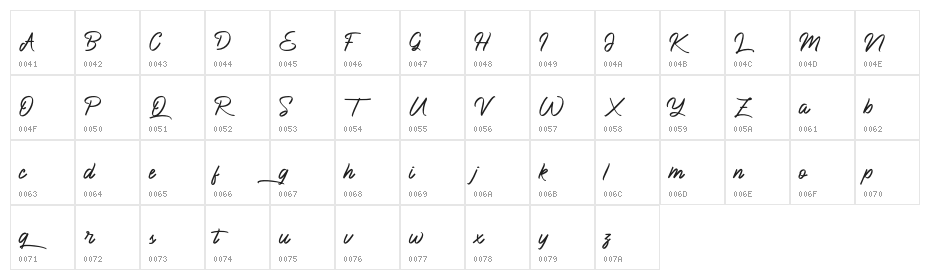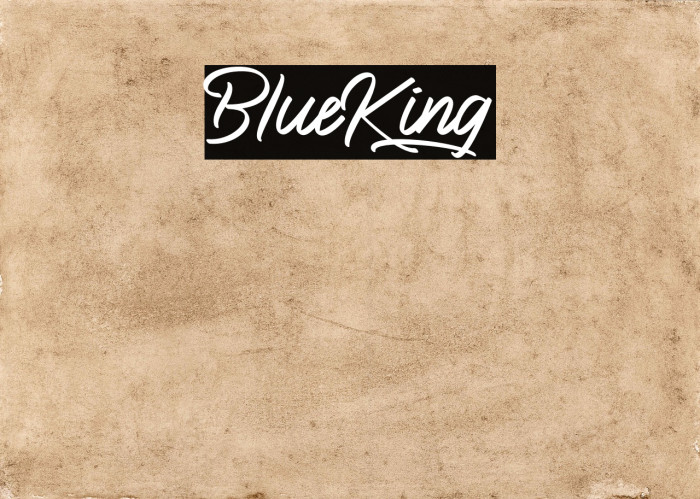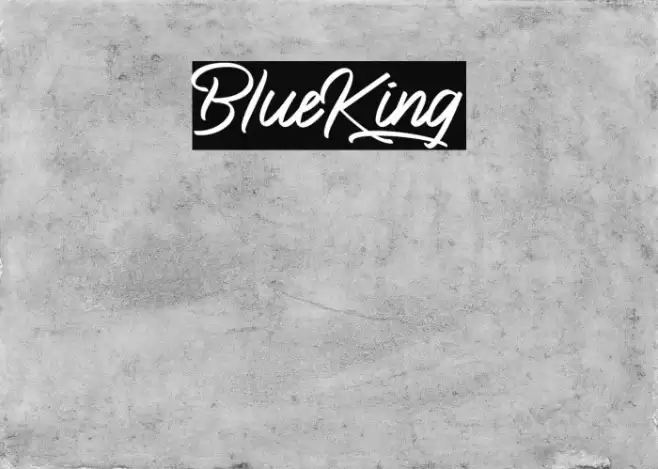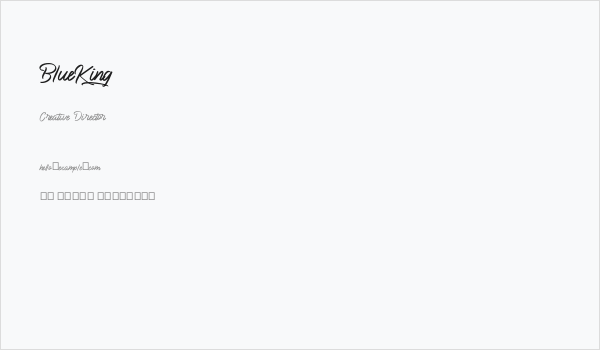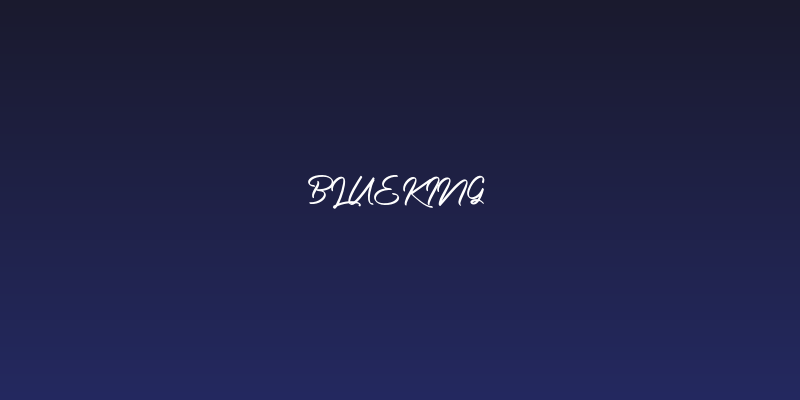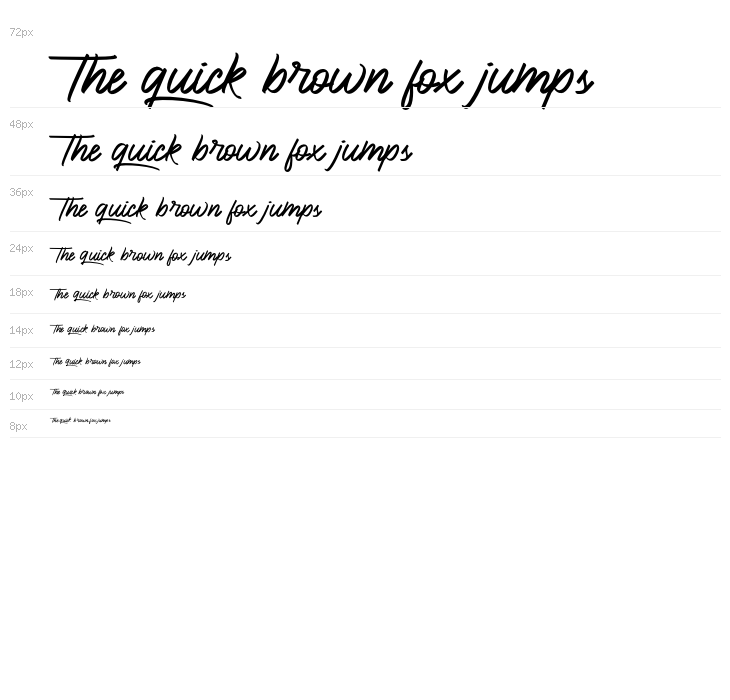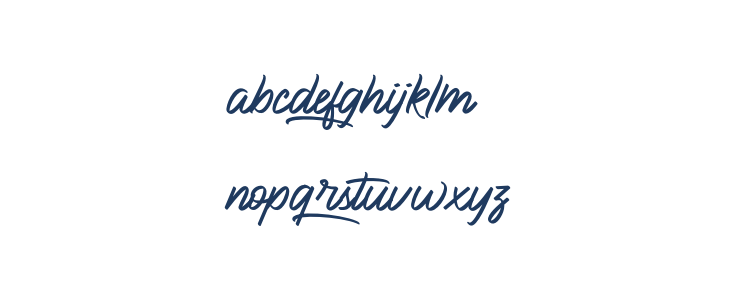
BlueKing Font
BlueKing Description
This font features a flowing, cursive style with elegant loops and swashes, giving it a sophisticated and artistic appearance. The uppercase letters are bold and prominent, with distinctive flourishes that add a touch of flair. The lowercase letters maintain a consistent flow, enhancing readability while retaining an artistic touch. The overall design is reminiscent of traditional calligraphy, with a modern twist that makes it suitable for various creative applications. The font's unique character is further emphasized by its smooth curves and balanced proportions, making it an excellent choice for projects that require a personal and expressive touch.